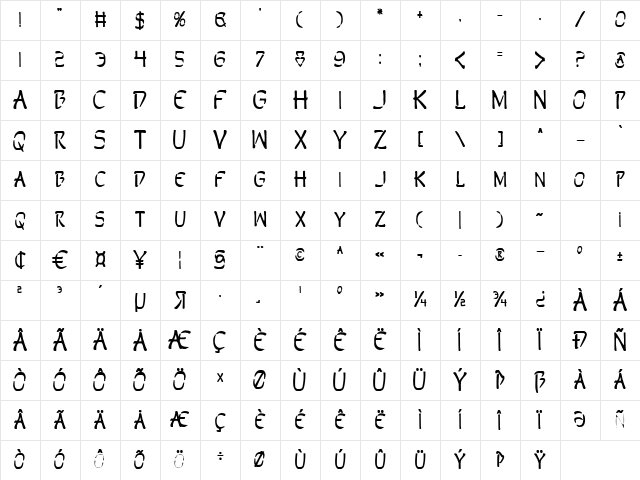
Complete Perdition Bold glyph index. Displaying only characters natively supported by Perdition Bold font.
Perdition is a composed and adaptable typeface that performs quietly and consistently across a wide range of design contexts. Its bold stroke weight gives it real presence on the page.